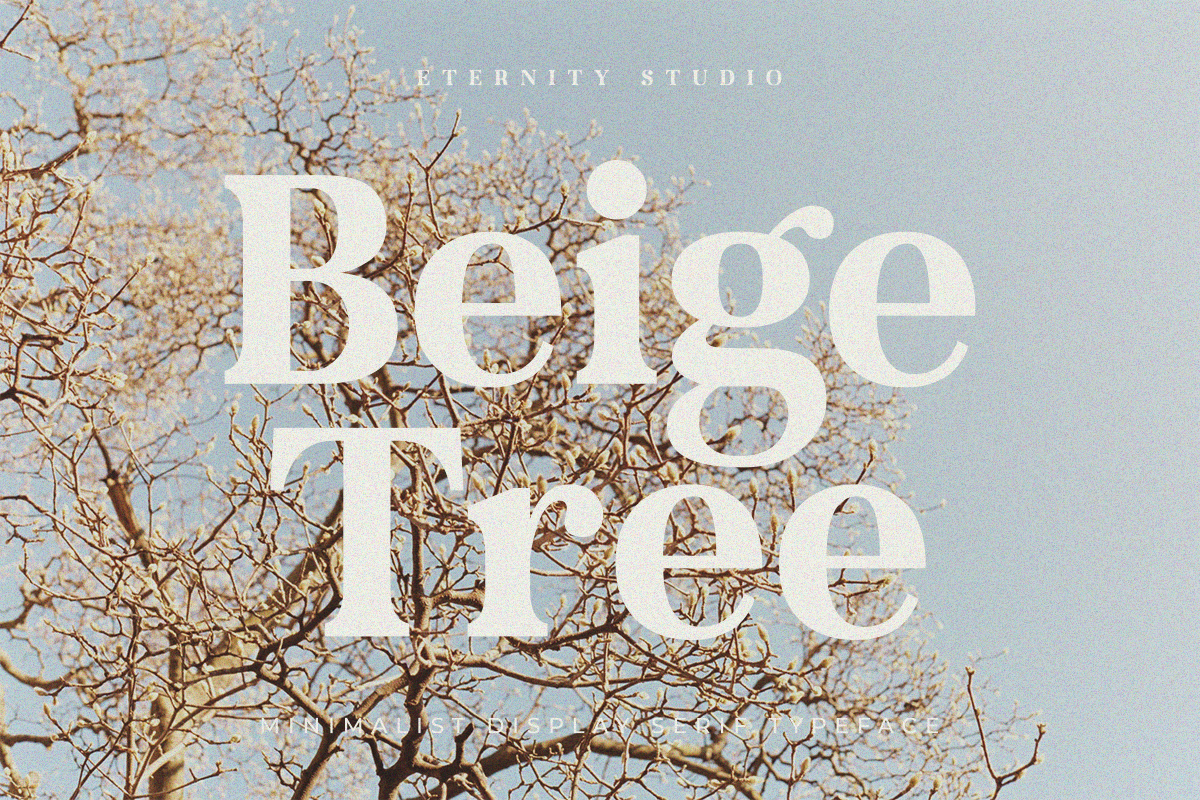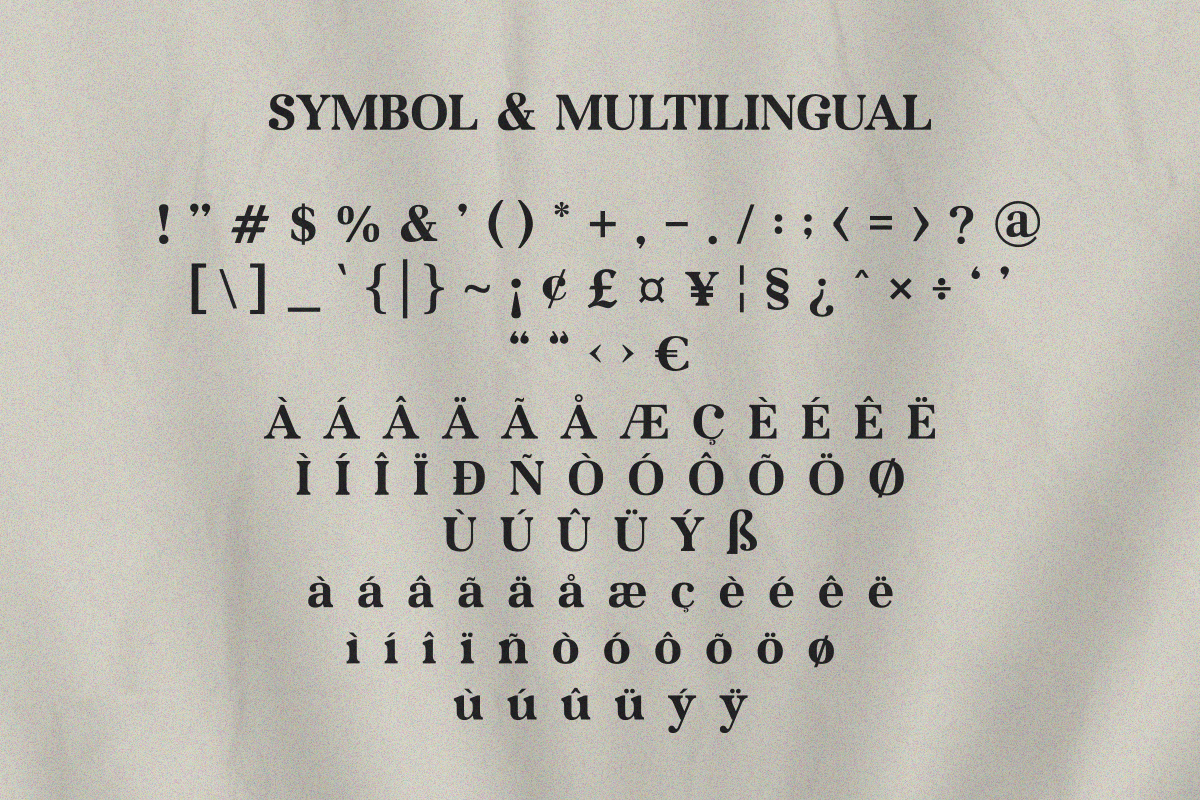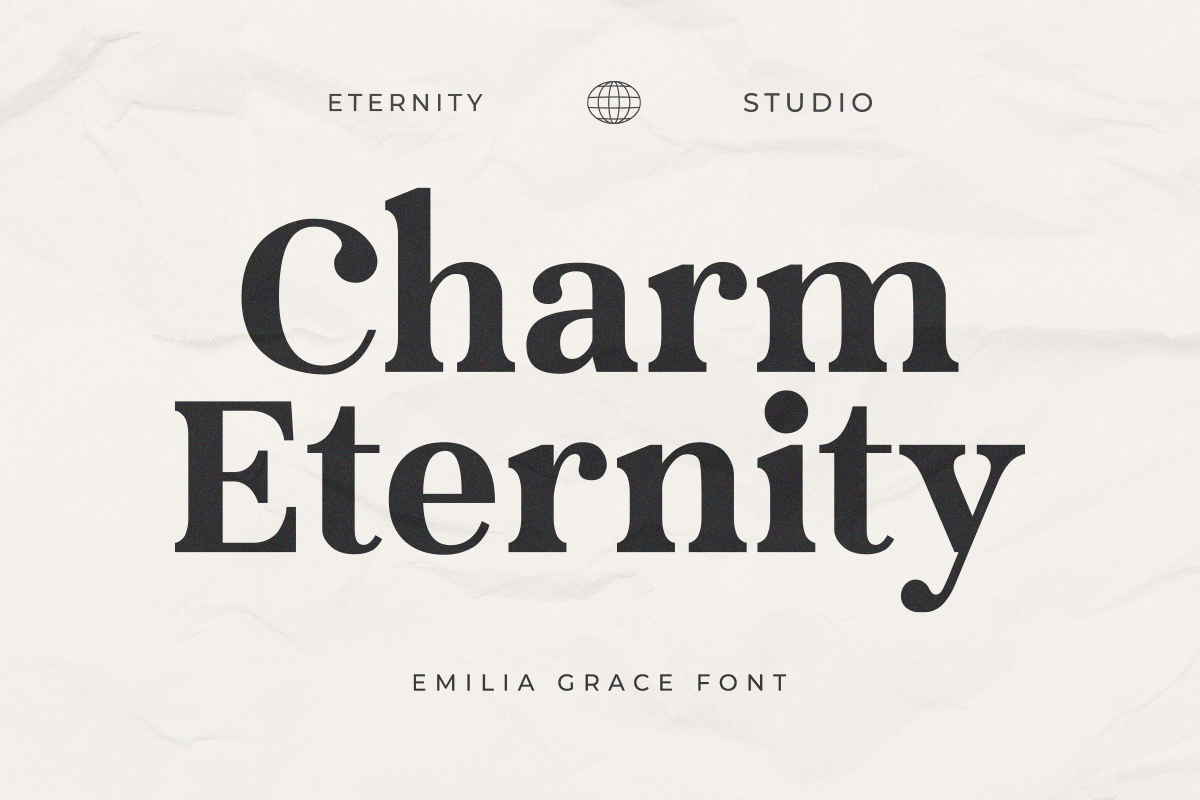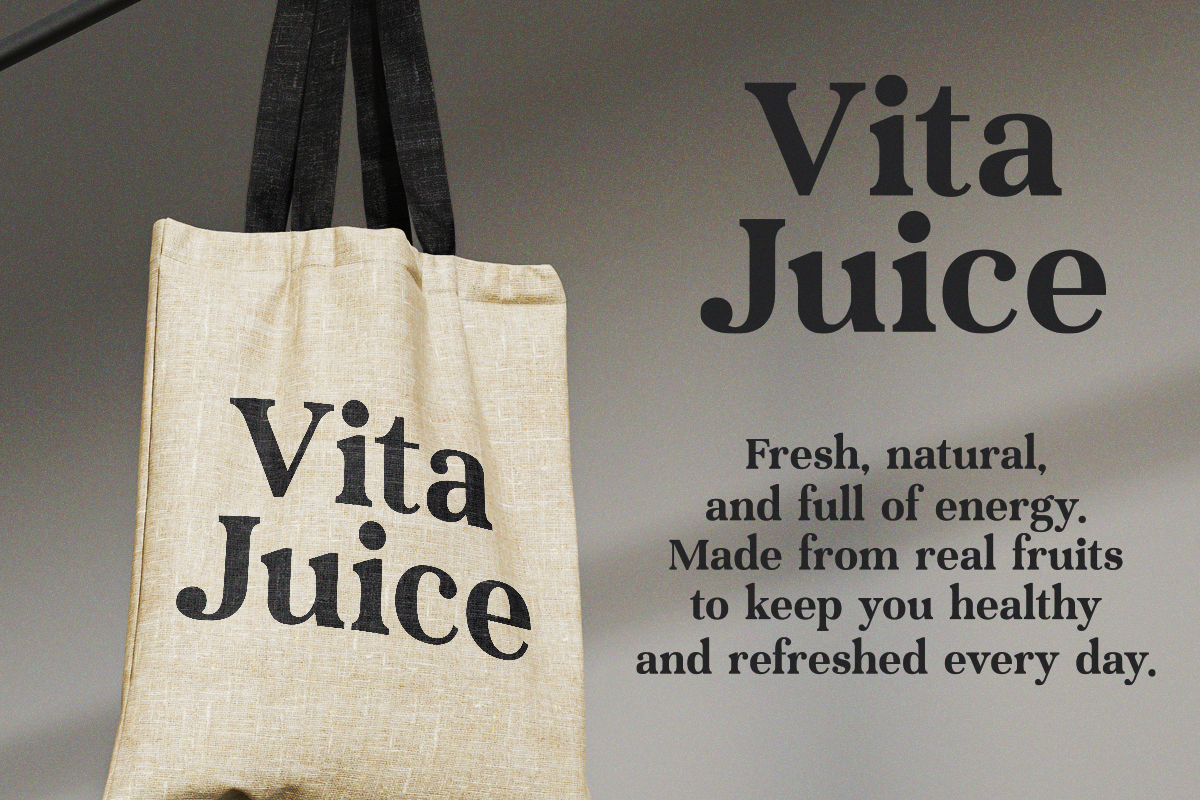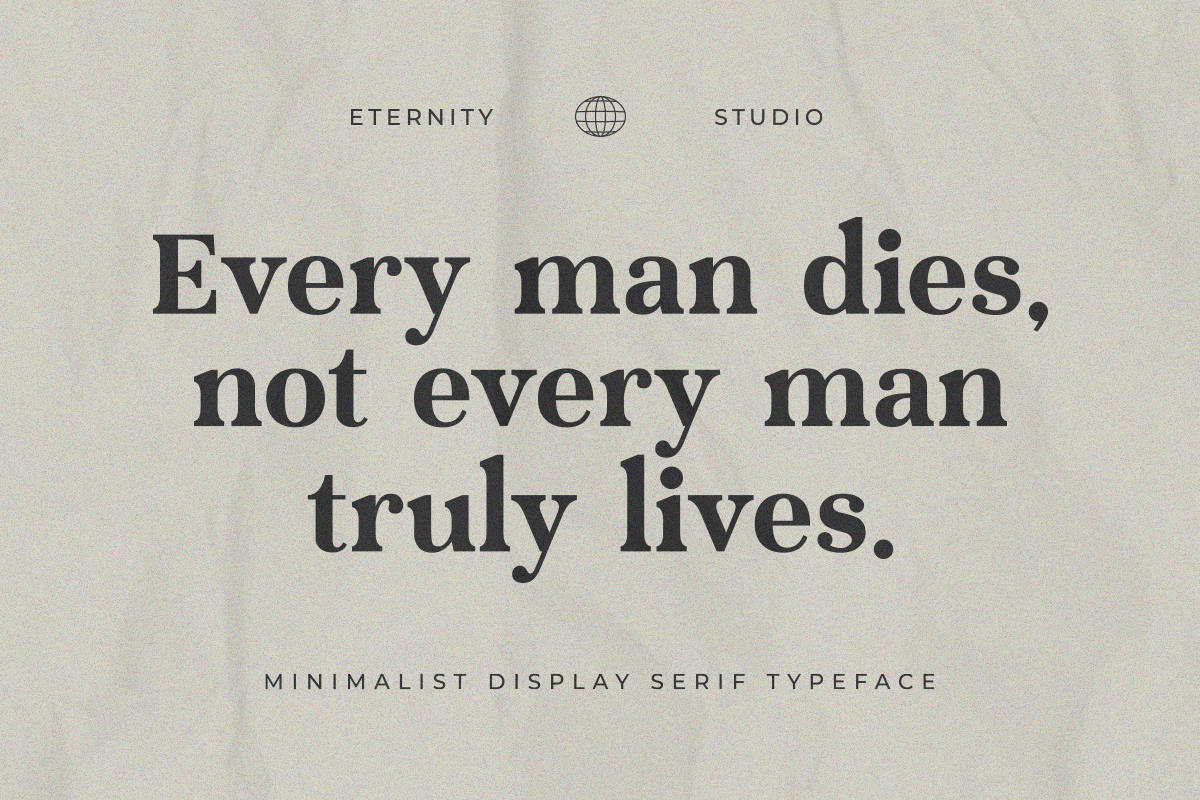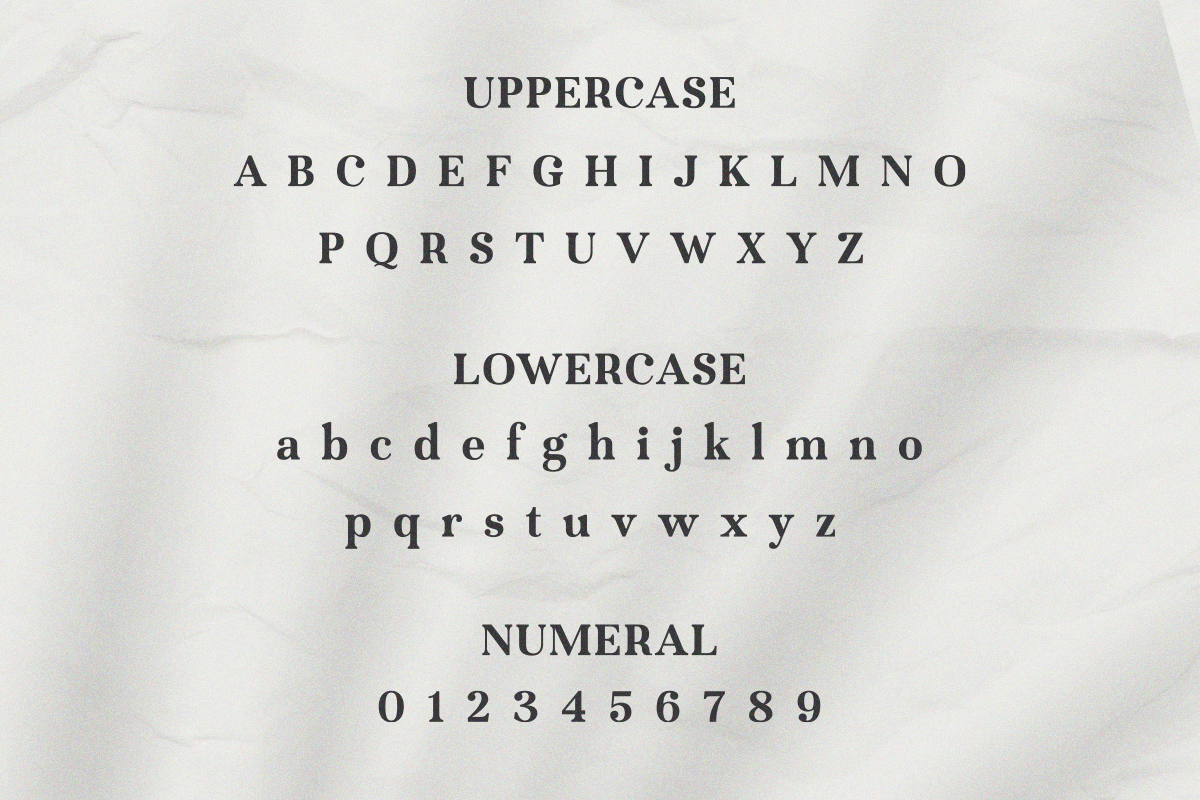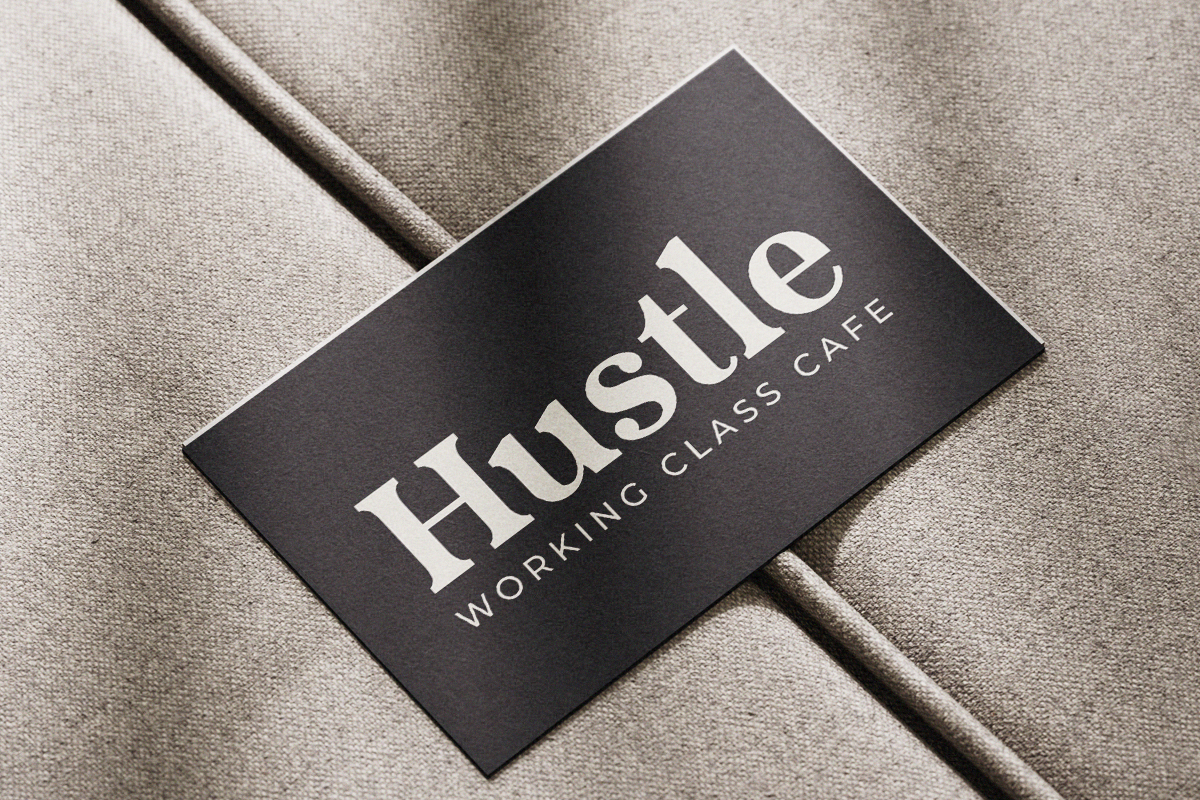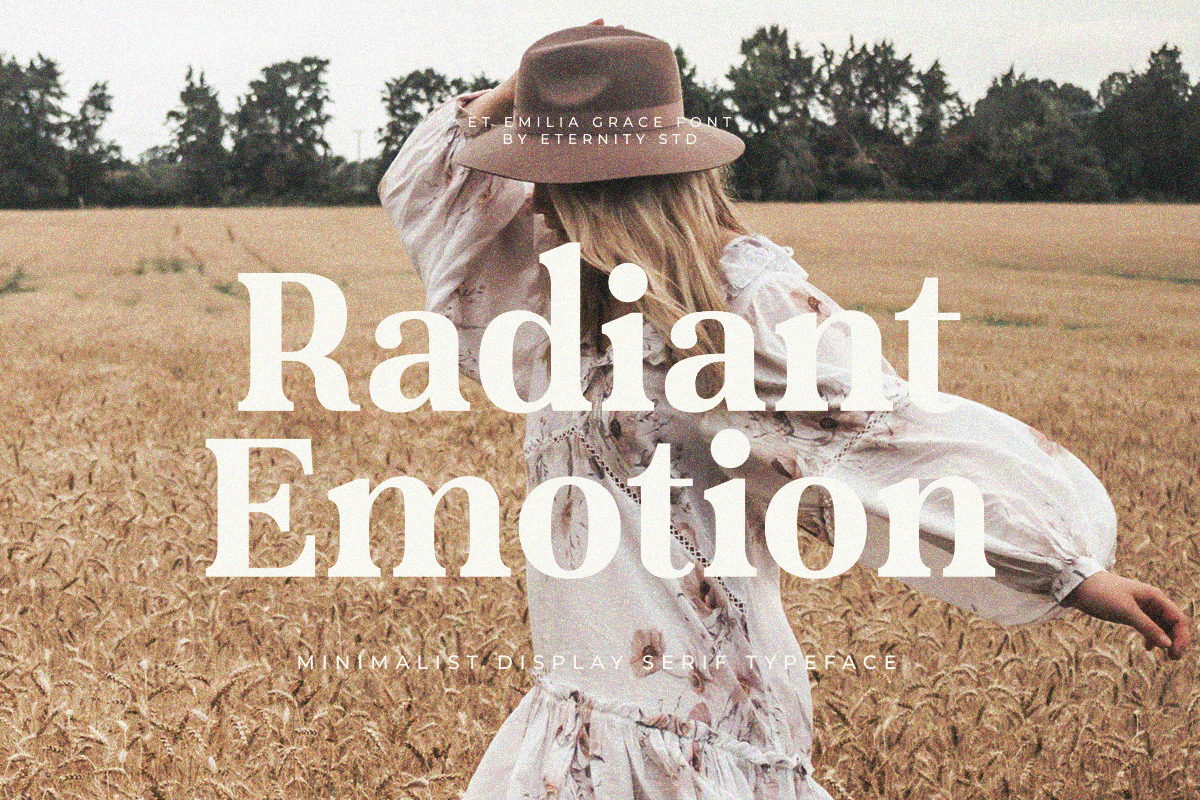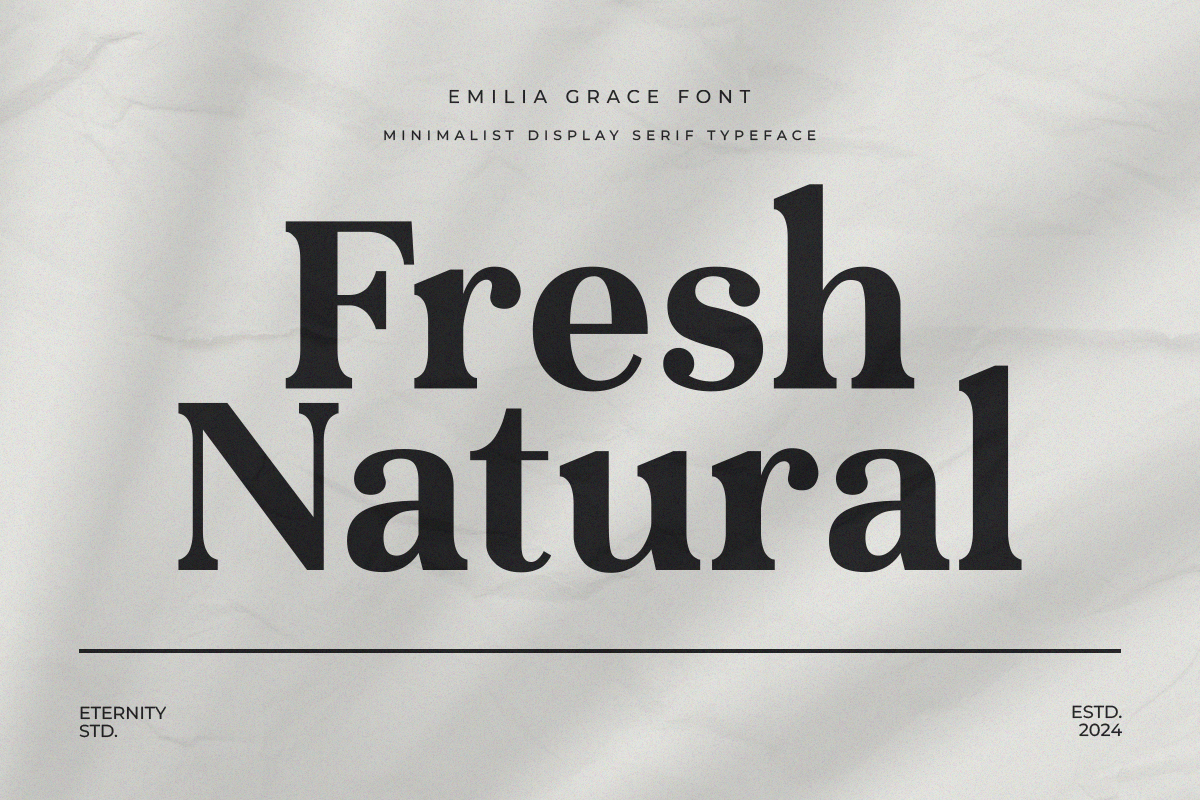
ET Emilia Grace
ET Emilia Grace is a modern serif font that embodies elegance and sophistication. With clean lines and refined details, this font delivers a timeless look that’s perfect for both classic and contemporary design projects.
Branding & logo design
Editorial layouts (magazines, books, catalogs)
Wedding invitations & stationery
Posters, packaging & product design
Digital and print projects requiring a stylish serif touch
✨ Features:
Uppercase & lowercase letters
With ET Emilia Grace, every design will shine with sophistication, style, and professional appeal.